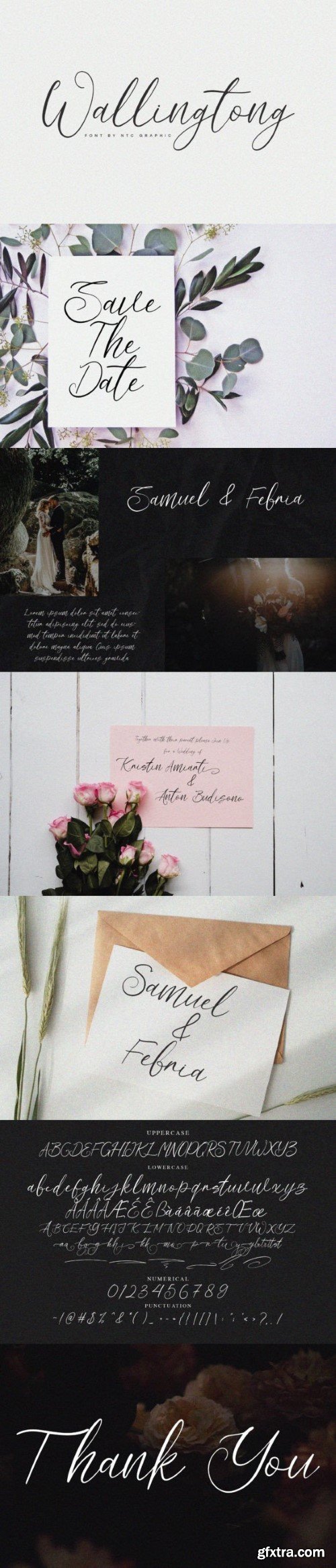
华尔ting Tong 字体
Wallingtong is a graceful script font exuding sophistication and charm. With its elegant flourishes and refined strokes, it adds a touch of luxury to invitations, branding, and packaging. Perfect for conveying elegance and style, “Wallingtong” captures attention with its timeless appeal and impeccable craftsmanship.